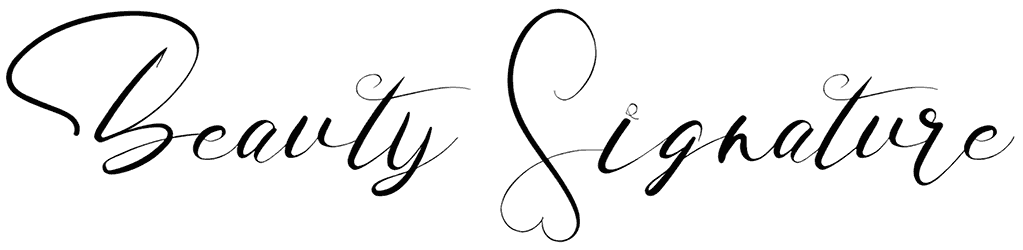
Beauty Signature Font
Meet Beauty Signature, a gorgeous calligraphy font with sweet heart swashes that gives your design soft, elegant, and happy feelings. If you are in a relationship, it’s perfect to express your emotions for your partner in a love letter.
It’s also a good choice for wedding invitations, Valentine’s cards, greetings, embroidery, and wall decor quotes. Although this artistic font is very beautiful, it may seem a little illegible in context.